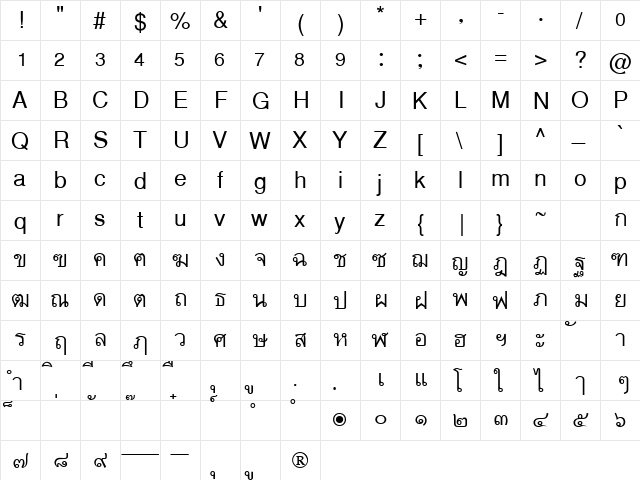
FixedDB ThaiText New Regular
FixedDB ThaiText New is a composed and adaptable typeface that performs quietly and consistently across a wide range of design contexts.